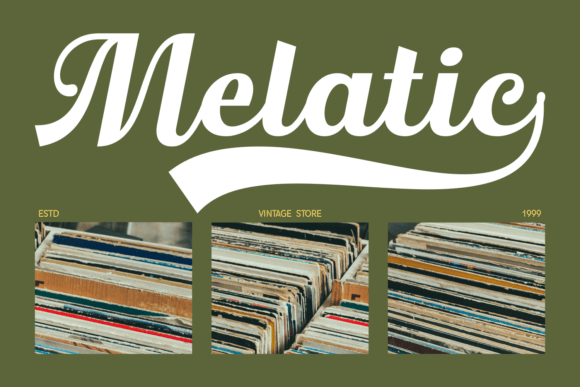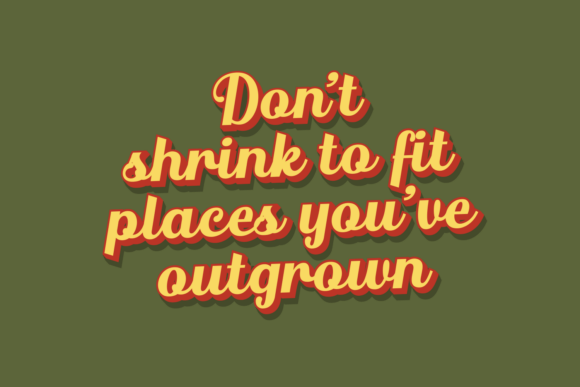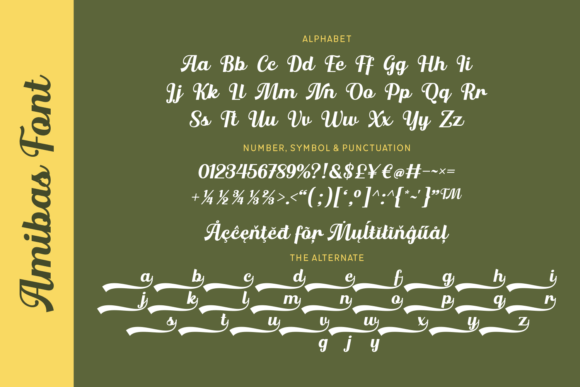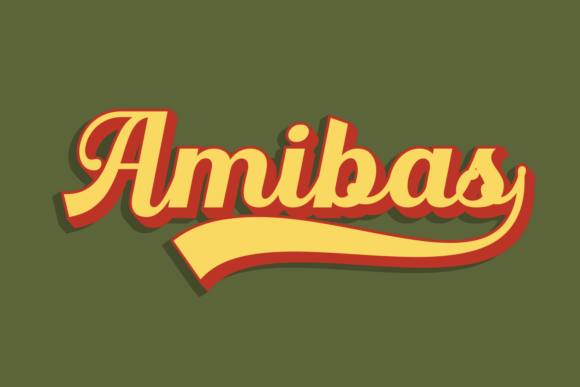
Introducing Amibas Font: The Ultimate Retro-Inspired Script for Bold Designs
Are you a designer or crafter looking for a font that embodies the spirit of the 70s and 80s? Do you want to add a touch of vintage flair and sporty attitude to your projects? Look no further than Amibas Font, a retro-inspired script font that’s sure to bring energy and charisma to any design.
The Retro Revival of Amibas Font
Amibas Font is a bold and eye-catching script font that’s reminiscent of classic logo designs from the 1970s and 1980s. With its thick letterforms, dynamic swashes, and bold drop shadow effect, this font captures the nostalgic feel of a bygone era. The strong curves and classic baseball-style tail of Amibas Font evoke the spirit of sports branding, while its playful and energetic vibe makes it perfect for a wide range of design applications.
Perfect for Apparel Branding and Retro Posters
Amibas Font is ideal for designers and crafters who want to create bold and eye-catching designs for apparel, retro posters, signage, and headline graphics. The font’s sporty attitude and vintage flair make it a home run for designs that require a statement piece. Whether you’re creating a logo for a sports team, designing a retro-style poster for a music festival, or crafting a bold headline for a advertising campaign, Amibas Font is the perfect choice.
Key Features of Amibas Font
- Thick Letterforms: Amibas Font features thick and bold letterforms that are perfect for creating eye-catching designs.
- Dynamic Swashes: The font comes with dynamic swashes that add a touch of elegance and sophistication to any design.
- Bold Drop Shadow Effect: The bold drop shadow effect of Amibas Font adds depth and dimension to any design, making it perfect for creating bold and eye-catching graphics.
- Classic Baseball-Style Tail: The classic baseball-style tail of Amibas Font adds a touch of sporty attitude to any design.
Why Choose Amibas Font?
So why choose Amibas Font for your next design project? Here are just a few reasons:
- Unique and Eye-Catching: Amibas Font is a unique and eye-catching script font that’s sure to grab attention.
- Versatile: The font is versatile and can be used for a wide range of design applications, from apparel branding to retro posters and signage.
- Easy to Read: Despite its bold and thick letterforms, Amibas Font is easy to read, making it perfect for headlines and titles.
- High-Quality: Amibas Font is a high-quality font that’s designed to deliver exceptional results.
Tips for Using Amibas Font
Here are a few tips for using Amibas Font in your design projects:
- Use it as a Headline Font: Amibas Font is perfect for use as a headline font, where its bold and eye-catching letterforms can really make an impact.
- Pair it with a Sans-Serif Font: For body text, pair Amibas Font with a clean and simple sans-serif font to create a striking contrast.
- Experiment with Colors: Amibas Font looks great in a range of colors, so don’t be afraid to experiment and find the perfect hue for your design.
In conclusion, Amibas Font is a retro-inspired script font that’s perfect for designers and crafters who want to add a touch of vintage flair and sporty attitude to their projects. With its thick letterforms, dynamic swashes, and bold drop shadow effect, this font is sure to bring energy and charisma to any design. Whether you’re creating a logo for a sports team, designing a retro-style poster, or crafting a bold headline, Amibas Font is the perfect choice.